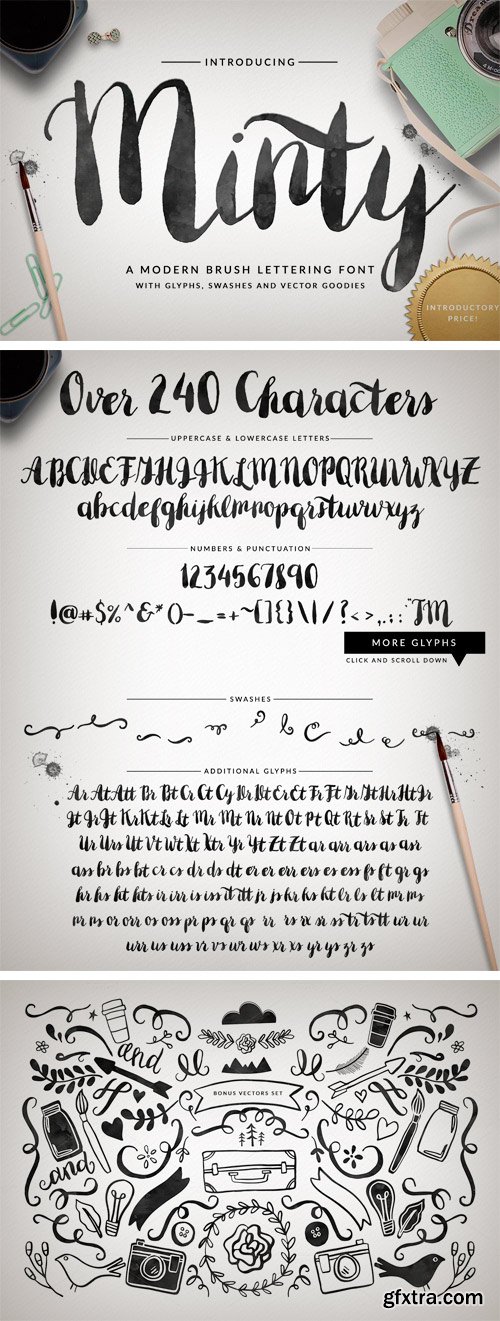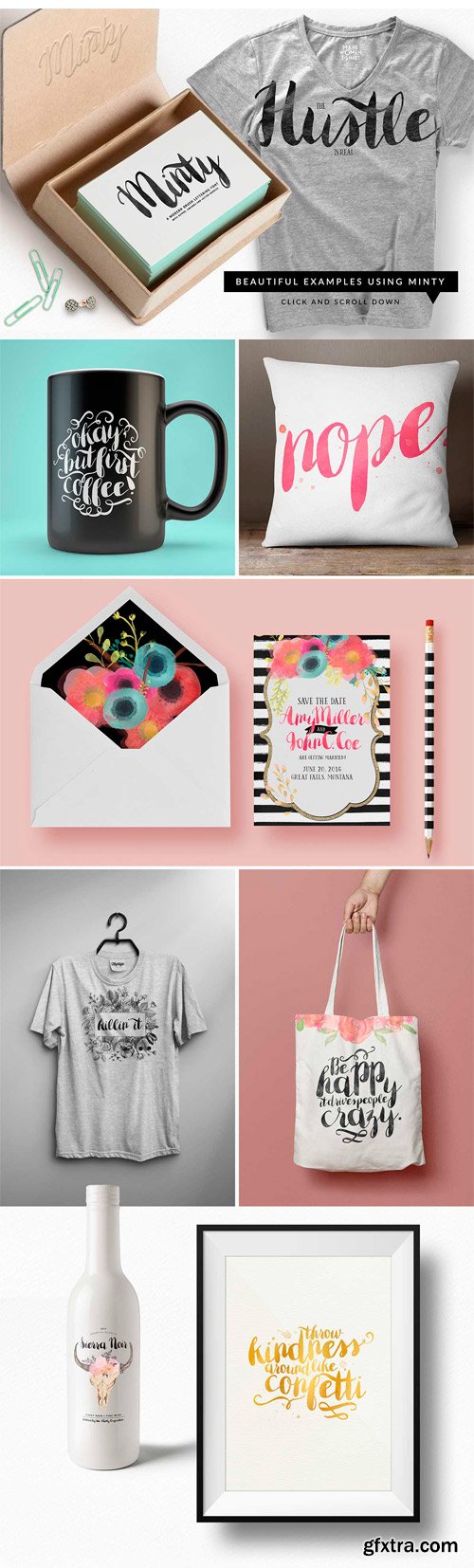
CM - Minty Font Brush Letter Typeface 366650
- Minty comes with full set of lowercase and capital letters, numbers, punctuation and symbols. You'll also find a slew of alternate glyphs that give Minty font variety. Plus, use the swash glyphs for even more beautiful typography creation!